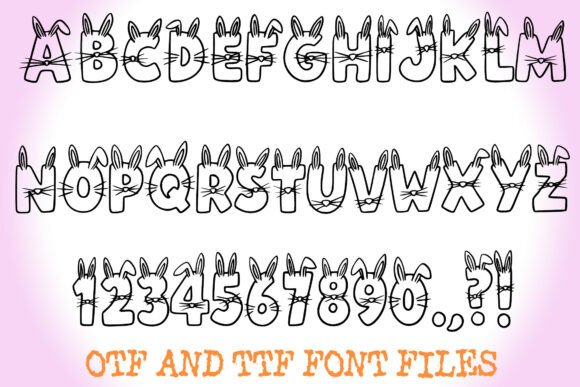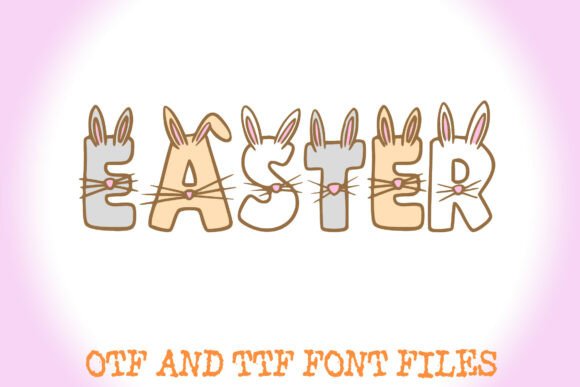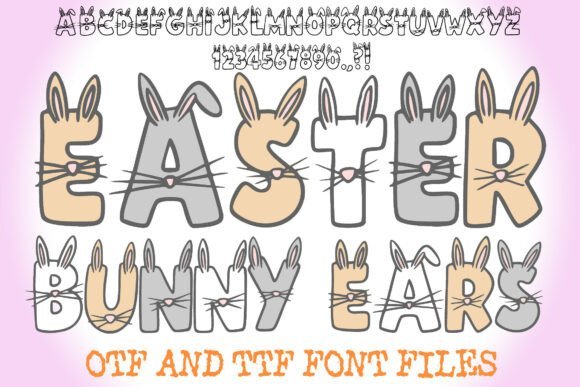
Hop into your next creative project with the Easter Bunny Ears Font!
Are you looking for a fun and playful font to add a touch of seasonal joy to your Easter and springtime designs? Look no further than the Easter Bunny Ears Font! This adorable, hand-drawn display typeface is designed to bring a smile to everyone’s face with its unique and charming design.
Each uppercase letter and number in the Easter Bunny Ears Font is uniquely decorated with a pair of perky bunny ears and a sweet set of whiskers, making it a must-have for any Easter or spring-themed project. The clean, bold outline style of this font makes it incredibly versatile, allowing you to use it in a variety of creative ways.
Ideal for Easter and Springtime Designs
The Easter Bunny Ears Font is perfect for a wide range of creative projects, from Easter egg hunts to spring apparel and classroom decor. Here are some ideas to get you started:
- Easter Egg Hunts: Create personalized labels, treasure map titles, and festive gift tags that will add a touch of magic to your Easter egg hunts.
- Spring Apparel: Design adorable T-shirts, hoodies, and baby onesies for holiday photos that will make your little ones stand out.
- Classroom Decor: Add a playful touch to your classroom with fun and colorful worksheets, posters, and decorations featuring the Easter Bunny Ears Font.
Versatile and Customizable
One of the best things about the Easter Bunny Ears Font is its versatility. The clean, bold outline style makes it look fantastic as a simple black-and-white graphic, but it’s also perfect for “color-in” projects where you can fill the ears with soft pastels.
Whether you’re a teacher, crafter, or small business owner, the Easter Bunny Ears Font is easy to use and customize to fit your needs. You can use it to create:
- Personalized party invitations: Add a touch of whimsy to your party invitations with custom bunny ear designs.
- Easter-themed crafts: Use the font to create custom Easter egg decorations, garlands, and other springtime crafts.
- Seasonal social media graphics: Add a playful touch to your social media graphics with custom bunny ear designs.
Why Choose the Easter Bunny Ears Font?
So why choose the Easter Bunny Ears Font for your next creative project? Here are just a few reasons:
- Unique and playful design: The Easter Bunny Ears Font is unlike any other font out there, with its adorable bunny ears and whiskers.
- Versatile and customizable: The font is easy to use and customize, making it perfect for a wide range of creative projects.
- Perfect for Easter and springtime designs: The font is specifically designed for Easter and springtime designs, making it a must-have for any seasonal project.
Get Creative with the Easter Bunny Ears Font!
Ready to hop into your next creative project with the Easter Bunny Ears Font? Here are some tips to get you started:
- Experiment with different colors: Try filling the bunny ears with soft pastels or bold brights to add a pop of color to your designs.
- Mix and match with other fonts: Combine the Easter Bunny Ears Font with other fonts to create a unique and playful look.